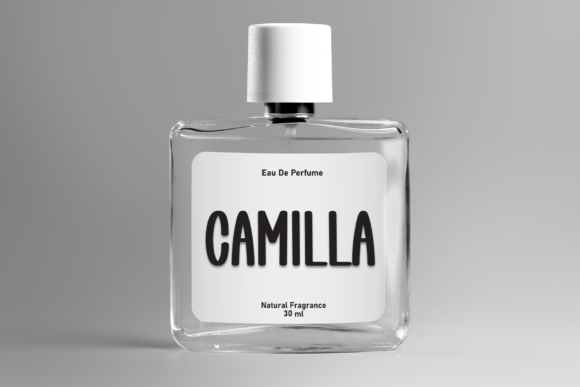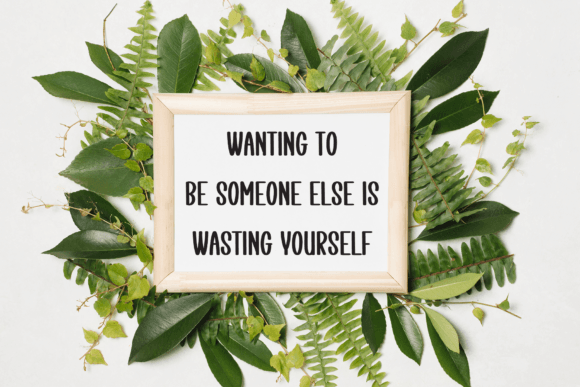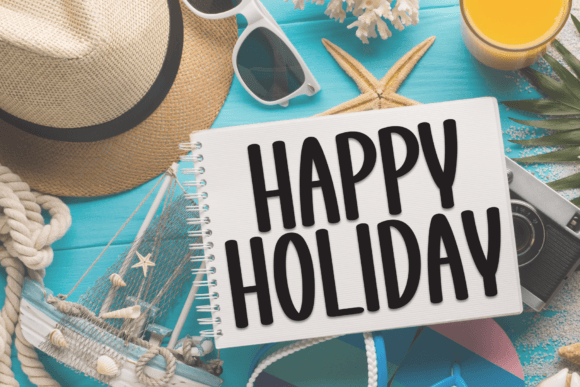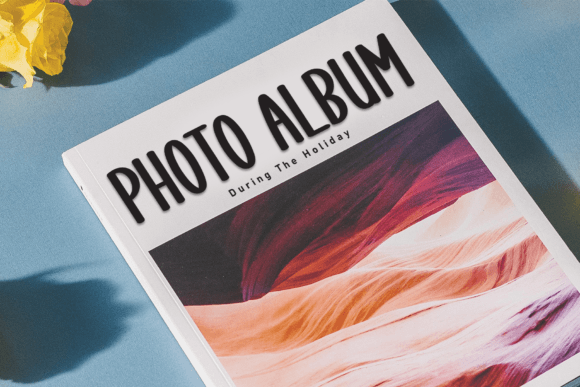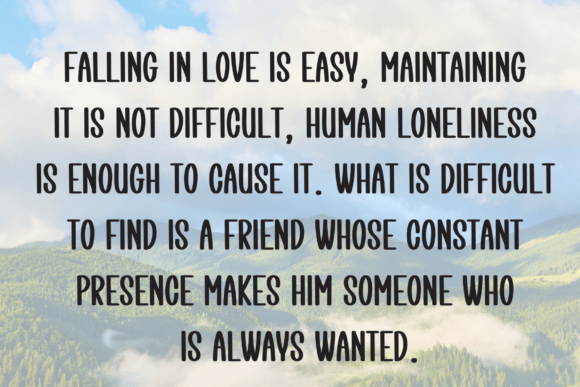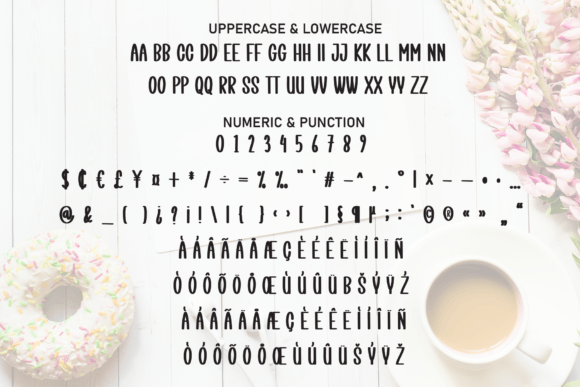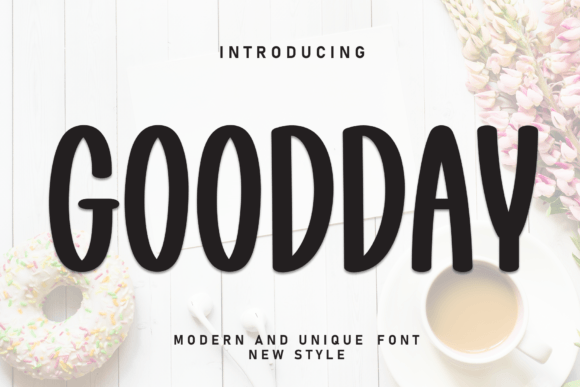
Introducing Goodday Font: The Epitome of Simplicity and Readability
In the realm of typography, a font can make or break the visual identity of a brand, product, or service. With the myriad of fonts available, finding the perfect blend of simplicity, readability, and friendliness can be a daunting task. This is where Goodday Font comes into play, a neat and casual display font designed to embody the very essence of clarity and approachability.
The Essence of Goodday Font
Goodday Font is crafted with the goal of providing a clean and straightforward aesthetic that can seamlessly integrate into various design projects. Its clean lines and friendly character make it an ideal choice for designers and crafters looking to convey a sense of approachability and modernity. Whether you’re working on a user interface, creating informative signage, or developing a modern branding strategy, Goodday Font ensures that your message is delivered with utmost clarity.
Versatility Across Mediums
One of the standout features of Goodday Font is its versatility. This font is meticulously designed to perform exceptionally well across different mediums, be it digital or print. In the digital realm, where screen sizes and resolutions vary greatly, Goodday Font maintains its legibility and aesthetic appeal, making it perfect for websites, mobile apps, and digital marketing materials. Similarly, in print, it shines in brochures, posters, and business cards, ensuring that your message stands out in any context.
Why Choose Goodday Font?
There are several reasons why Goodday Font should be your go-to choice for your next design project:
• Simplicity: In an era where complexity can often be overwhelming, Goodday Font offers a breath of fresh air with its simple and uncluttered design.
• Readability: Its clear and distinct characters ensure that your message is conveyed effectively, regardless of the audience or medium.
• Friendliness: The approachable nature of Goodday Font makes it perfect for brands looking to establish a friendly and welcoming image.
• Versatility: Its adaptability across various design projects and mediums makes it a valuable addition to any designer’s toolkit.
Applications of Goodday Font
The applications of Goodday Font are vast and varied. Here are a few examples:
• User Interfaces: Enhance the user experience with a font that is easy to read and interact with.
• Informative Signage: Convey information effectively and clearly, whether it’s for directions, promotions, or informational purposes.
• Modern Branding: Establish a modern and approachable brand image with a font that speaks simplicity and friendliness.
• Digital and Print Media: From websites and social media graphics to brochures and posters, Goodday Font is the perfect choice for any project requiring clarity and approachability.
Goodday Font is more than just a typeface; it’s a tool for effective communication and branding. Its blend of simplicity, readability, and friendliness makes it an invaluable asset for designers and crafters aiming to create a lasting impression. Whether you’re working on a digital project, a print material, or a branding strategy, Goodday Font is poised to elevate your design to new heights. Embrace the power of clean lines and friendly characters to ensure your message is not only seen but also appreciated.